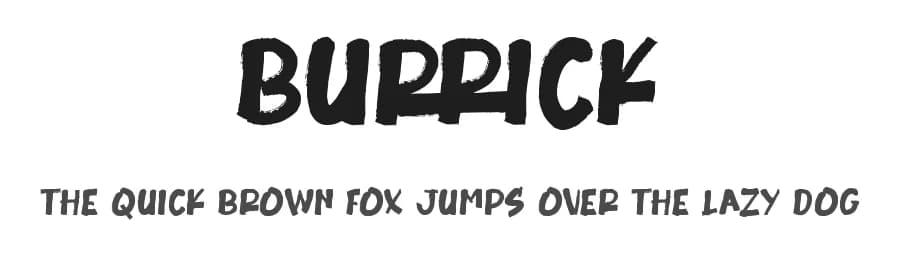
About Burrick Font
Burrick is a script & handwritten font designed by Jujun Gag. It includes 183 glyphs, a regular weight, TTF (TrueType) format, and 104 languages. Burrick is free to download; check the license details on this page before commercial use. Script & handwritten fonts like Burrick work best for wedding invitations, greeting cards, signatures, and elegant branding.
Burrick Font is a script font that shines as a display or heading face. Pair it with a clean sans-serif or serif font for body text β the contrast creates a clear hierarchy while the two styles stay balanced and easy to read.